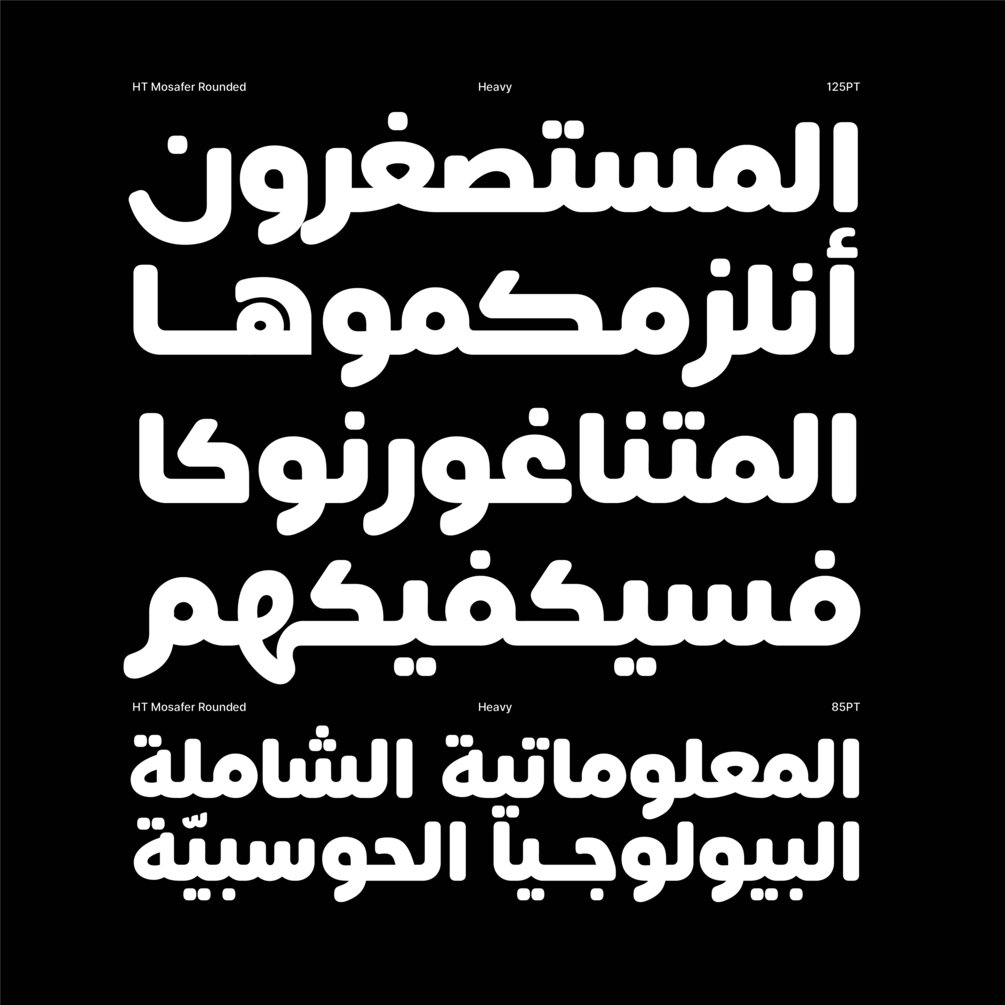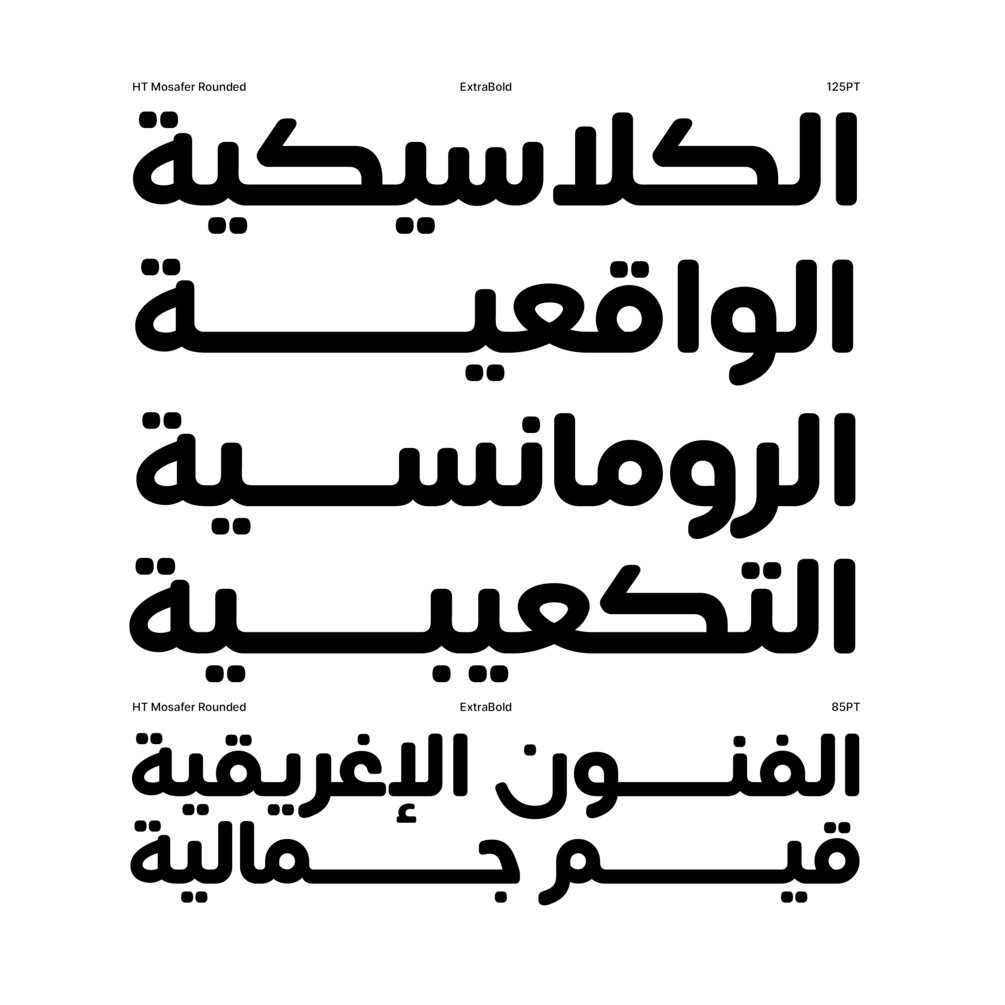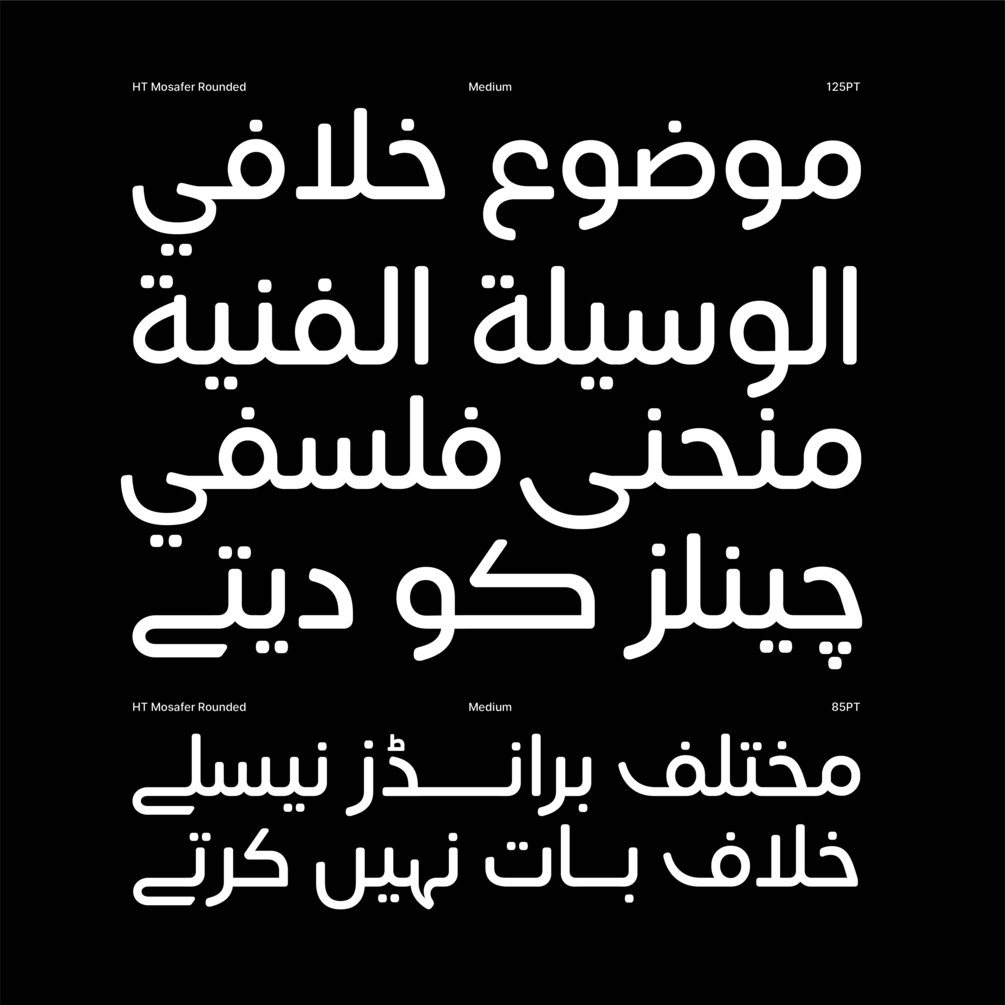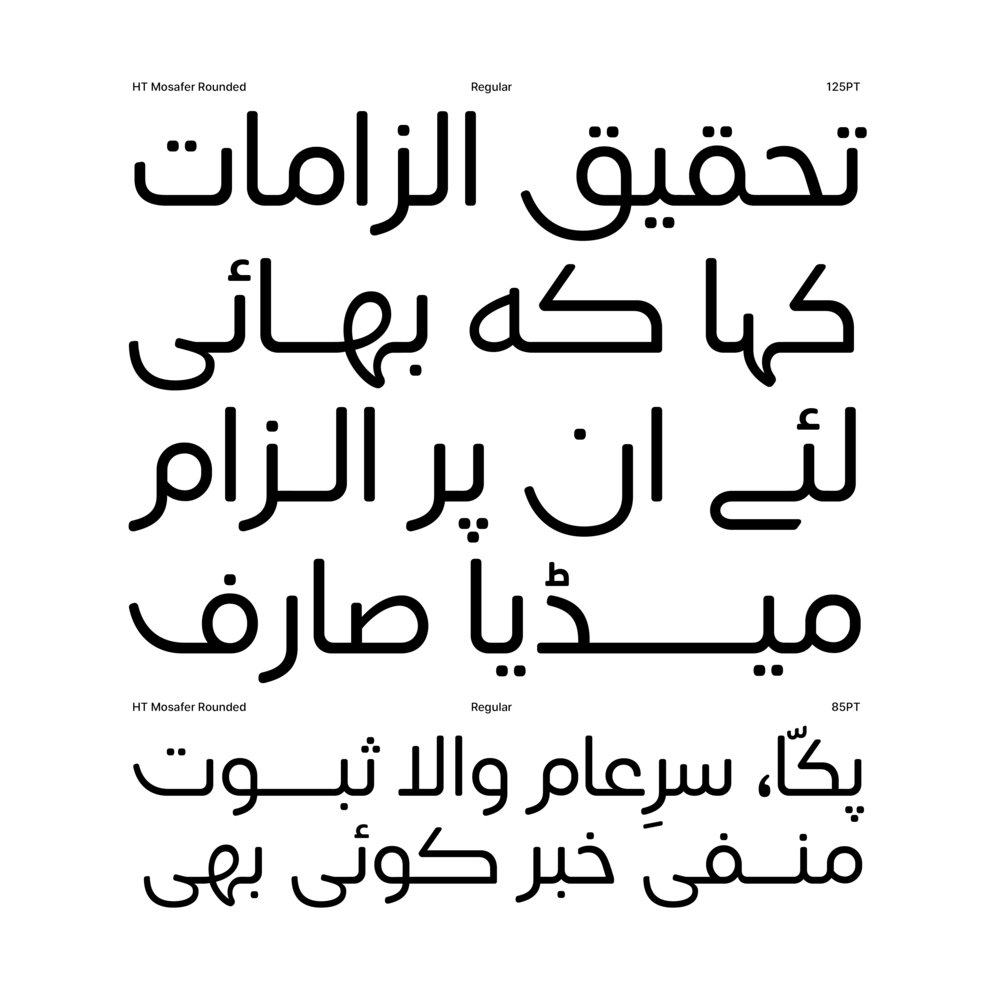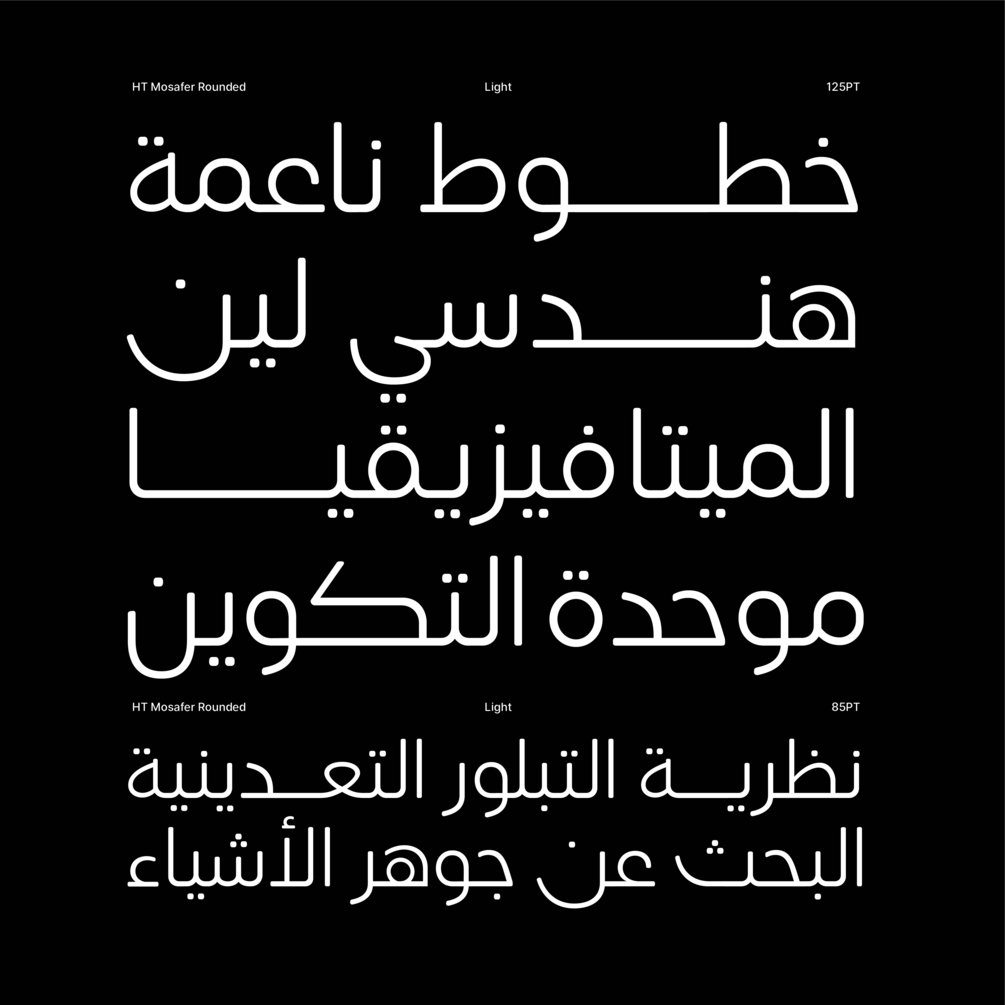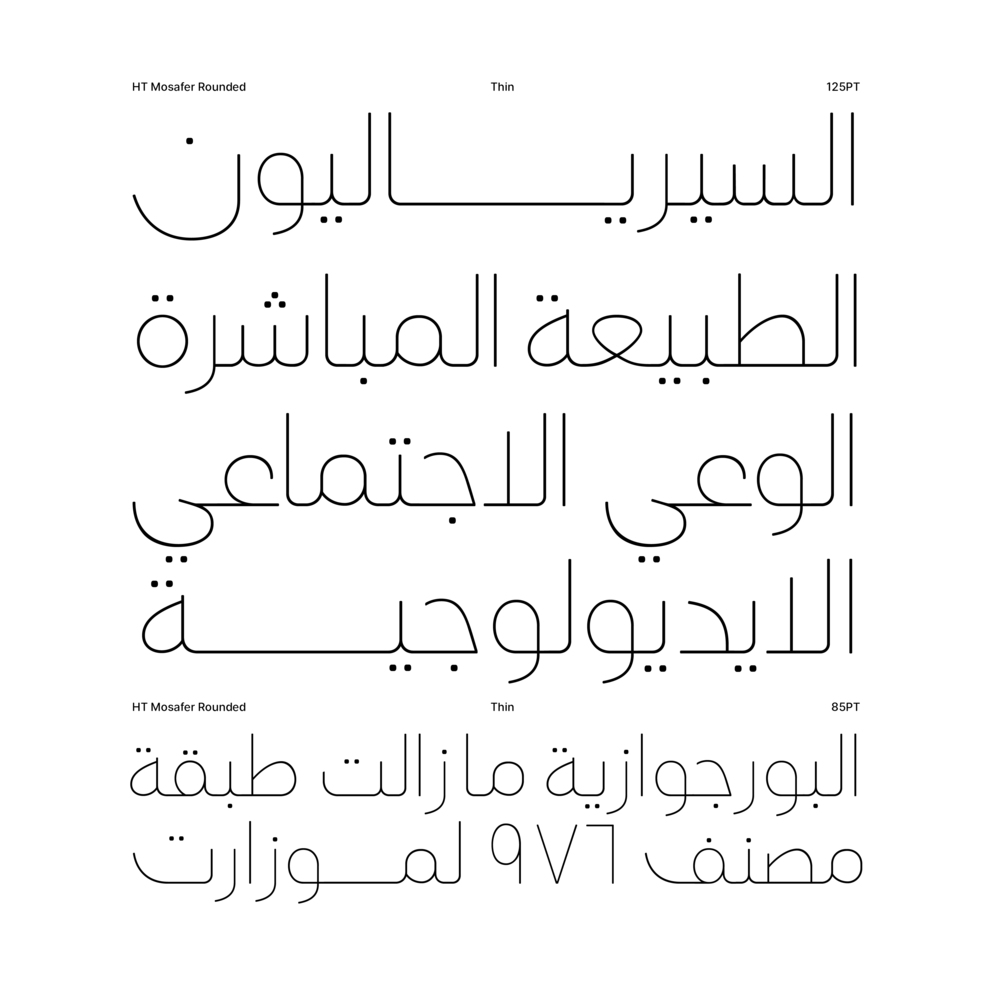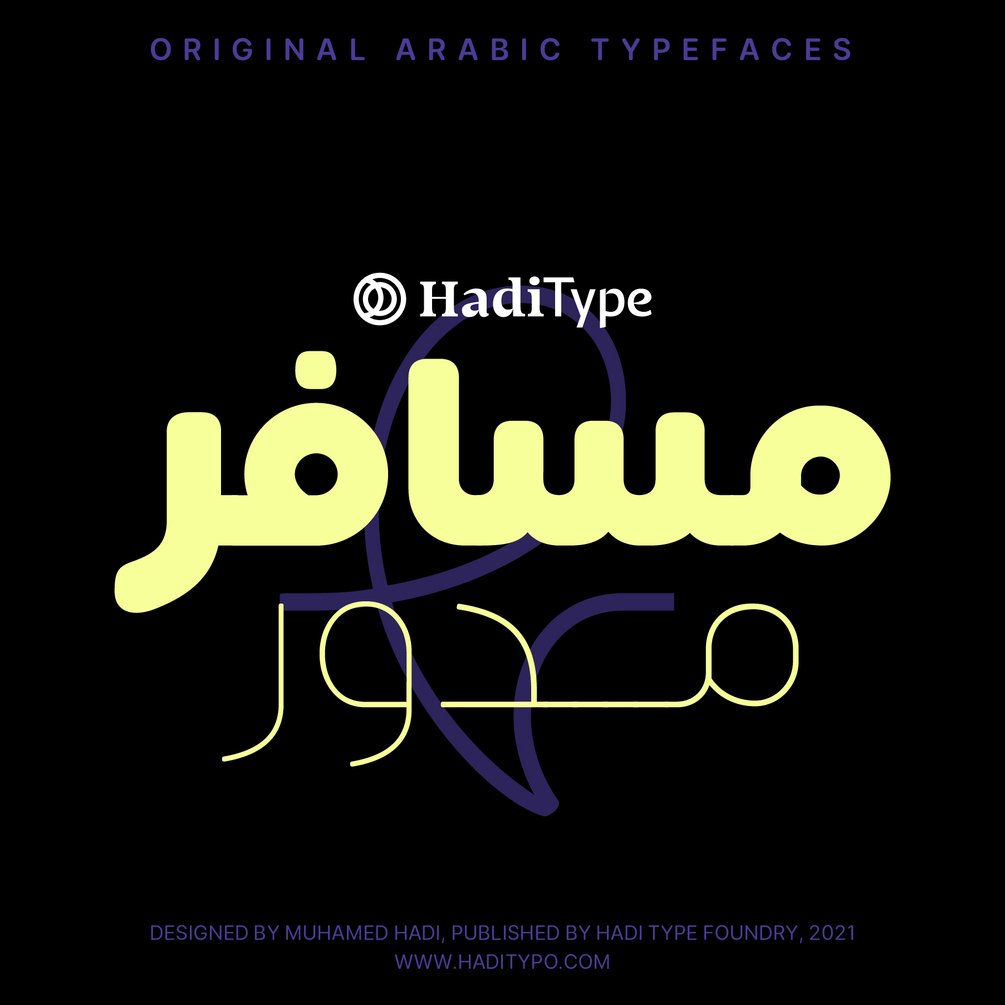
HT Mosafer Rounded
HT Mosafer Rounded is a soft contemporary geometric typeface that blends distinct minimalist characteristics with mainstream details. It originates from Mosafer, a superfamily with a warm well-balanced texture and a distinct personality.
HT Mosafer Rounded type family includes 10 weights from Thin to Heavy.
HT Mosafer Roundedsupports Arabic, Persian, and Urdu languages.